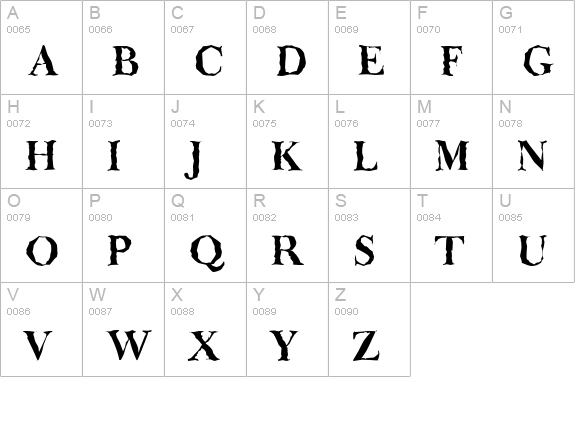
BaskerOldRandom-Bold is a strong, high-contrast variant in the BaskerOldRandom typeface family \xE2\x80\x94 well suited to headlines, attention-grabbing titles, and strong calls-to-action.
BaskerOldRandom-Bold is a bold and eye-catching font that exudes a sense of strength and confidence. With its unique and random design elements, this font is perfect for making a statement in headlines, titles, and branding materials. The bold strokes and sharp edges give it a modern and dynamic look that commands attention. What makes BaskerOldRandom-Bold even more appealing is that it is available for free download at FontsMarket.com. This means you can easily access this striking font to elevate your designs without any cost. Whether you're working on a poster, logo, website, or any other project that requires a bold and impactful typeface, BaskerOldRandom-Bold is sure to make a lasting impression. Download it today and unleash your creativity with this versatile font.